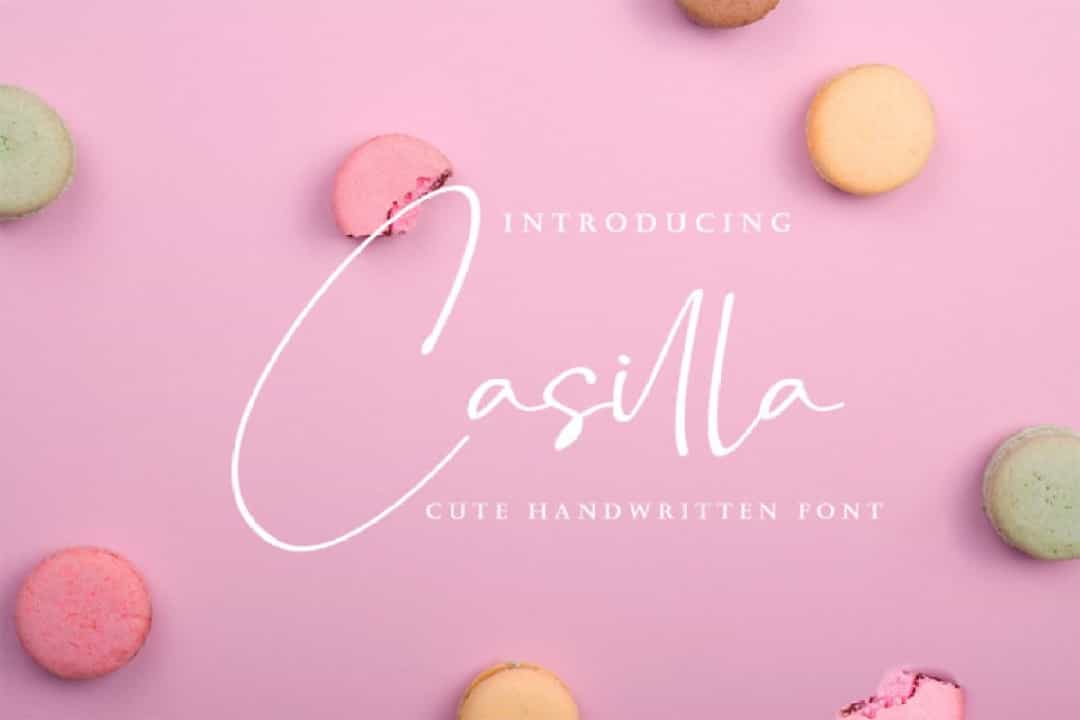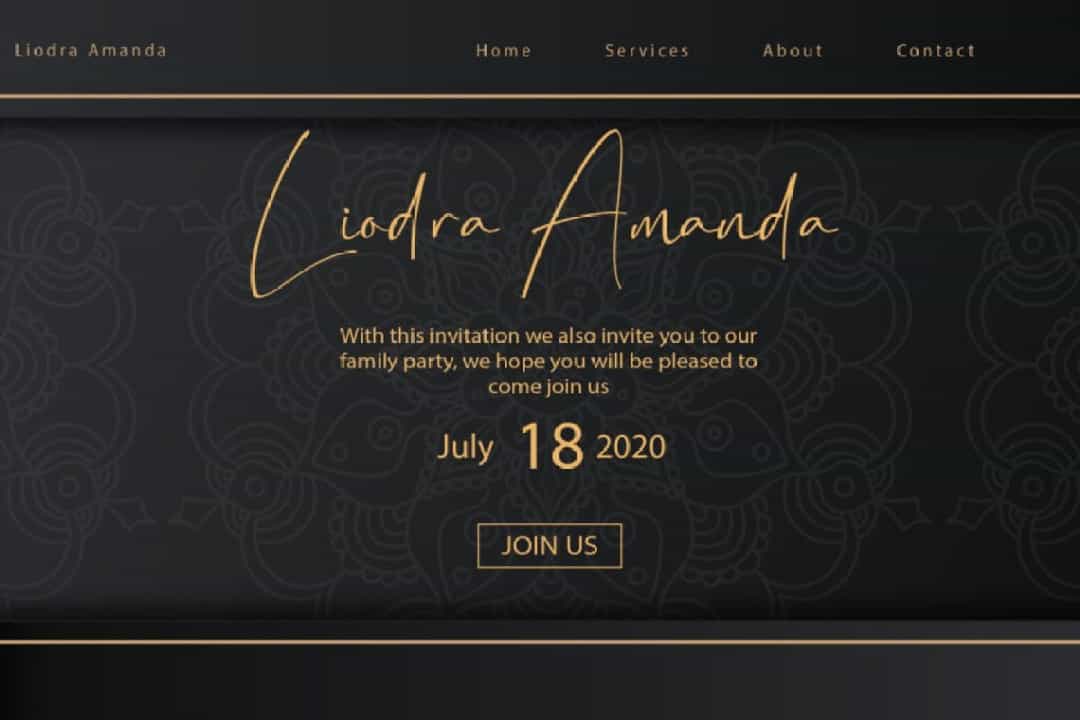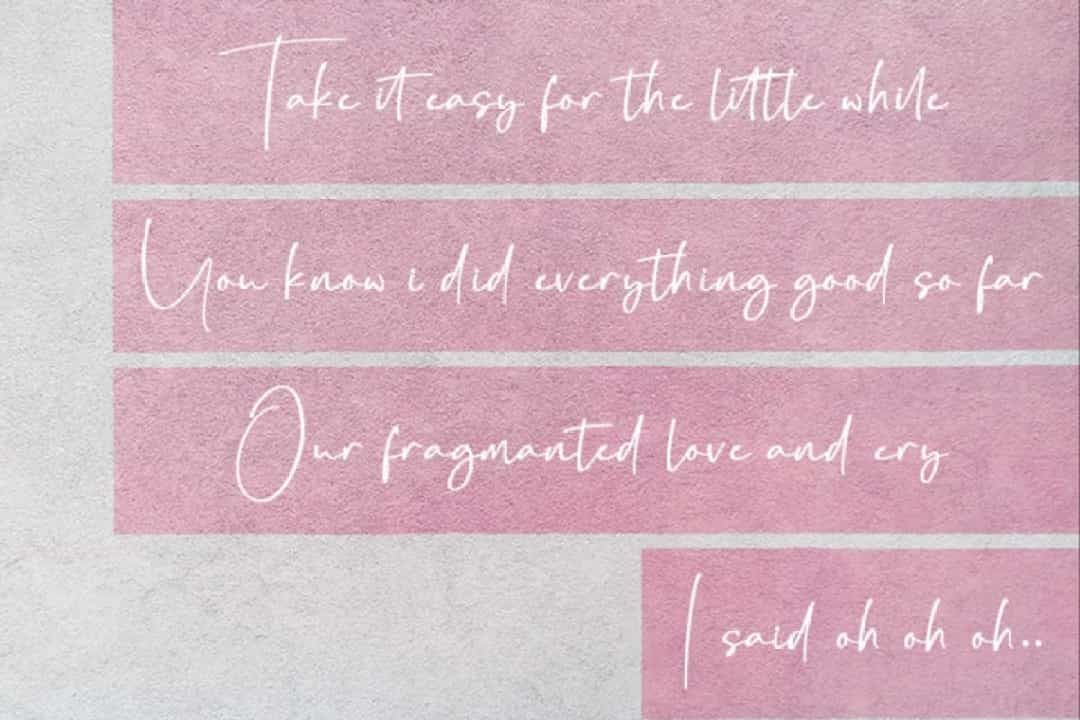
Discover Casilla Font, part of the Handwritten Script collection—a versatile and unique font perfect for adding a personal touch to your projects. Download it for free and enjoy crafting designs with style, from invitations to social media posts. This font is available exclusively for personal use, giving you the freedom to create without limits. Unlock your creativity with Casilla Font today!
Casilla is a modern font with a beautiful and legible signature script that has a bouncy base for any design project. Created and distributed by Dav Studio, this font has natural sketches to give it a cute touch for branding, logo design, or any DIY project.